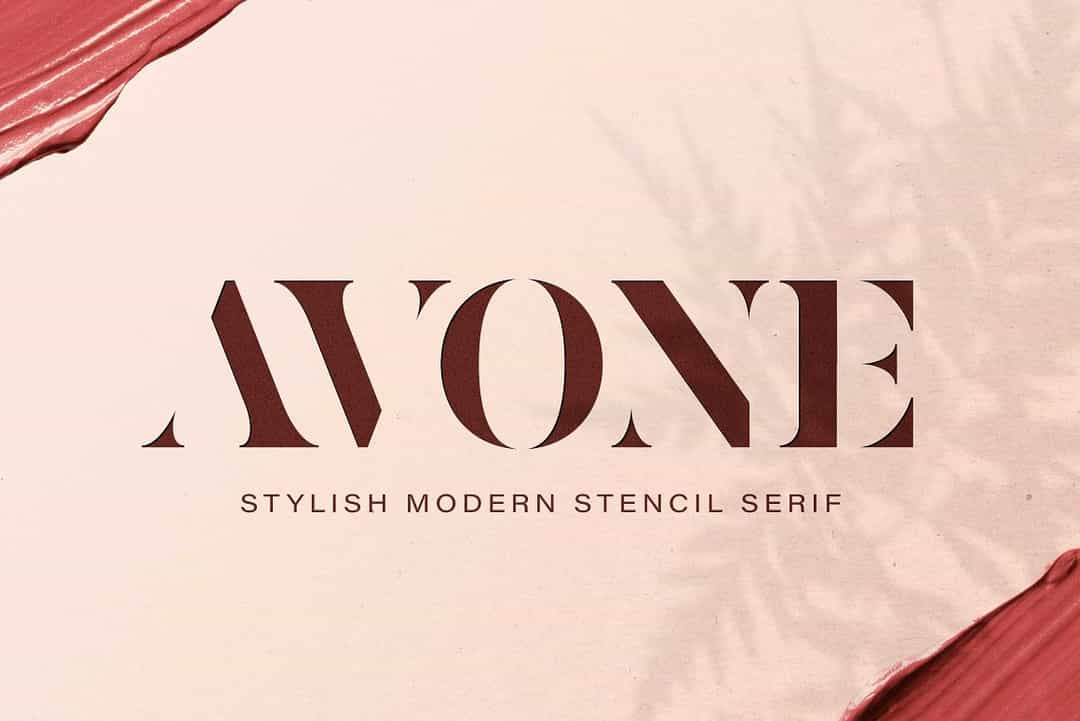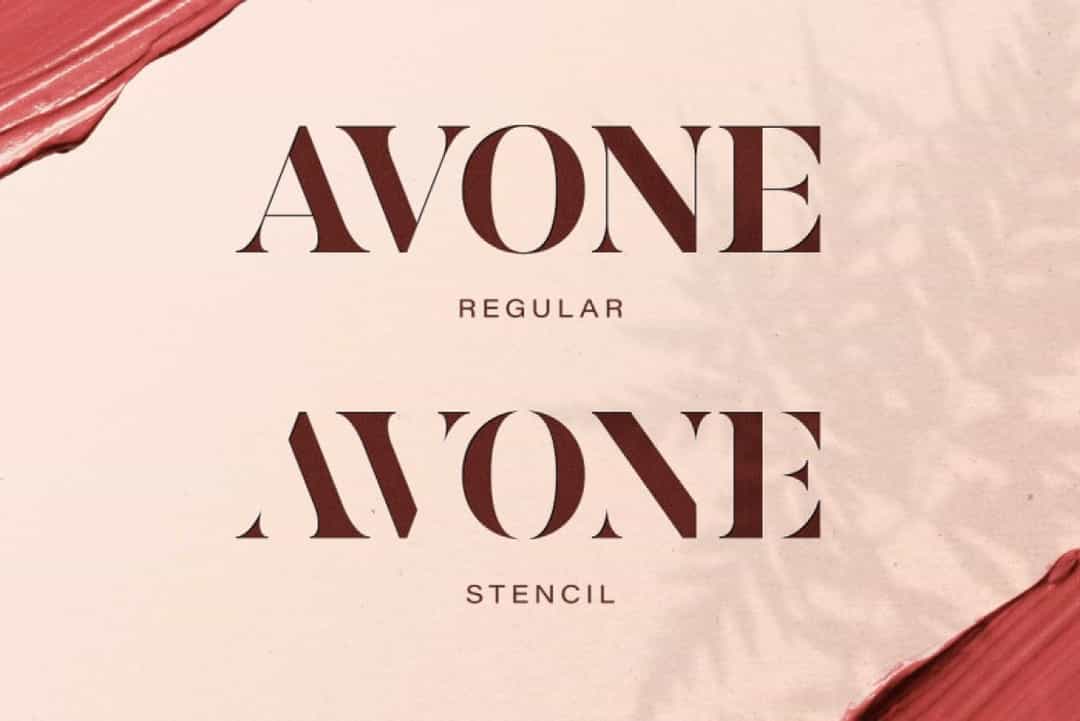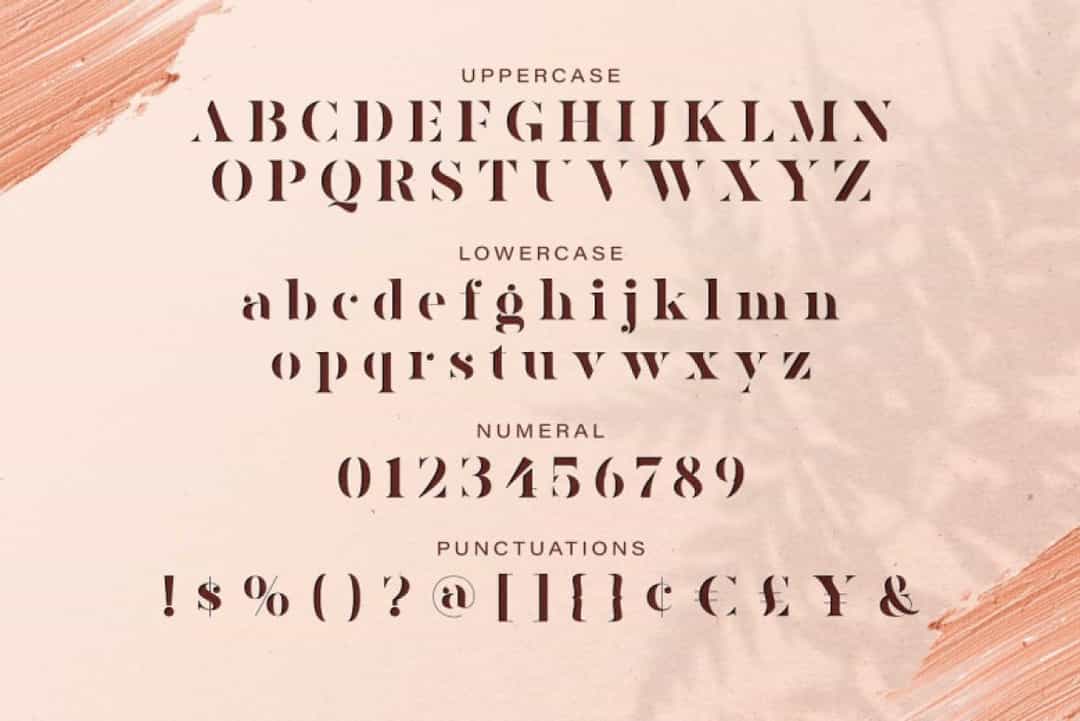
Avon is a modern and stylish serif typeface inspired by minimalist logo design. Available in both regular and stencil variants, its two styles provide endless creative opportunities – such as making templates, brochures, videos, logos and branding for advertising purposes and much more!